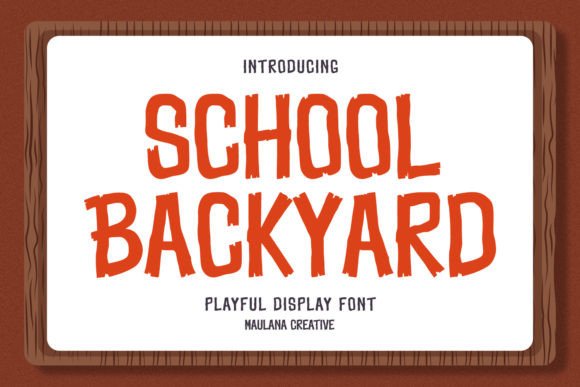
Journey into the enchanting world of School Backyard Font, a display font family that will ignite your creativity and leave a lasting impression. Immerse yourself in the nostalgia of childhood, where carefree days were spent exploring the wonders of the schoolyard. This font captures the essence of those cherished memories, evoking a sense of playfulness, wonder, and boundless imagination.
With its bold and whimsical strokes, School Backyard Font dances across the page, bringing life to your designs. Its playful curves and energetic lines create a visual symphony that captivates the eye and sparks the imagination. Whether you're crafting logos, social media posts, movie titles, book covers, posters, or web designs, this font will infuse your creations with a touch of magic.
Unleash your inner artist and let School Backyard Font guide you on an artistic adventure. Its versatility knows no bounds, adapting seamlessly to a wide range of creative projects. From the whimsical charm of children's books to the bold energy of movie posters, this font possesses the transformative power to elevate your designs to new heights.
Step into the School Backyard Font realm and embark on a creative odyssey that will leave you inspired and fulfilled. Its playful spirit and boundless charm will captivate your audience, leaving them with a lasting impression that lingers long after they've encountered your designs. Embrace the magic of School Backyard Font and watch your creativity soar.
Embrace the enchanting allure of School Backyard Font and let your imagination run wild. With its playful spirit and boundless charm, this font will elevate your designs to new heights, captivating your audience and leaving them with a lasting impression. Unleash your creativity and embark on an artistic adventure that will leave you inspired and fulfilled.